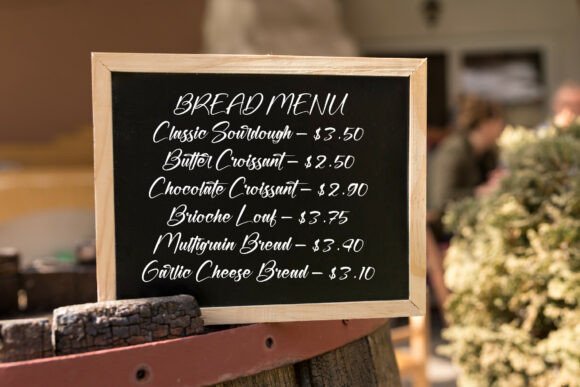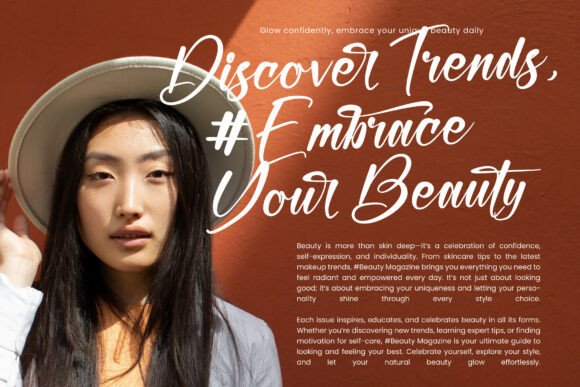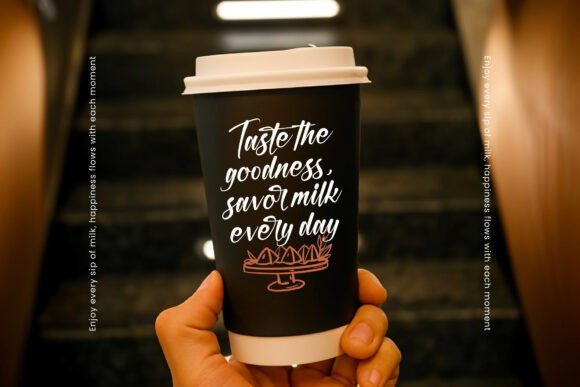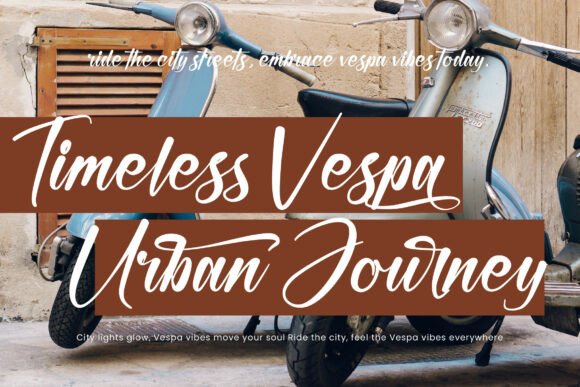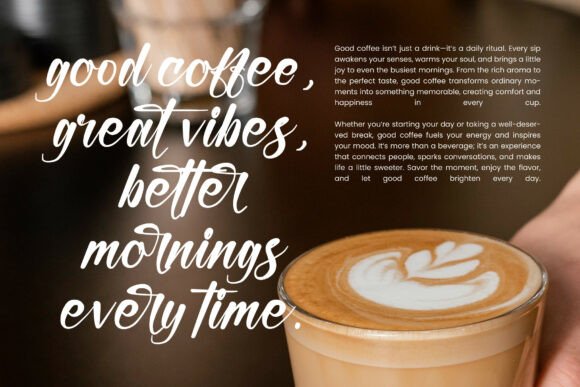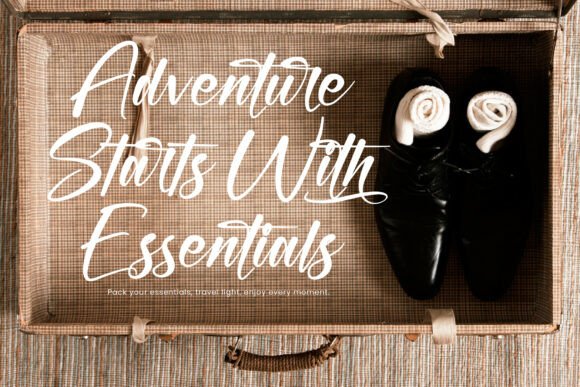
Introduction to Natural Botanicals Font Font
Fonts play a crucial role in design, and the Natural Botanicals Font font is a typeface that brings both character and versatility to any project. Whether you’re working on a branding project, a website, or a print design, the Natural Botanicals Font font offers a unique style that can elevate your work.
Infuse your designs with the breathtaking beauty of the outdoors with Natural Botanicals.
This new, bold, and elegant handwritten font is a celebration of organic movement, featuring fluid strokes that feel as if they were penned directly from nature With its dramatic, sweeping swashes and rhythmic connectivity, this typeface brings a sense of life and vitality to every character.
Key Features of Natural Botanicals Font Font
Why Choose Natural Botanicals Font Font?
The Natural Botanicals Font font is more than just a typeface – it’s a design tool that helps you communicate your message with style and clarity. Its unique character set and versatile design make it suitable for a wide range of applications, from elegant invitations to bold headlines.
With its carefully crafted letterforms and balanced proportions, the Natural Botanicals Font font ensures readability and visual appeal across all mediums.
What makes Natural Botanicals Font font special?
The Natural Botanicals Font font stands out with its unique design, exceptional readability, and versatility across various design applications.